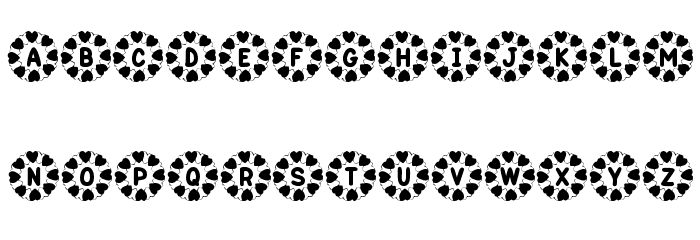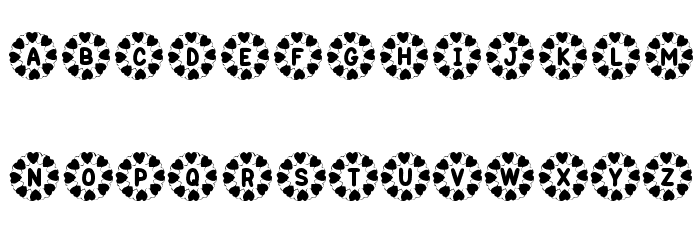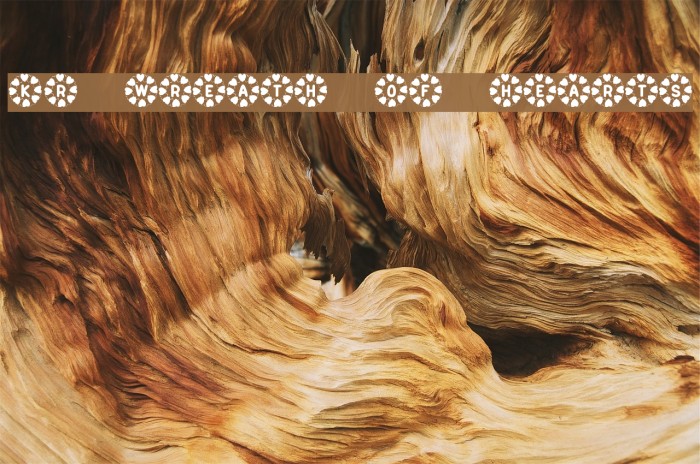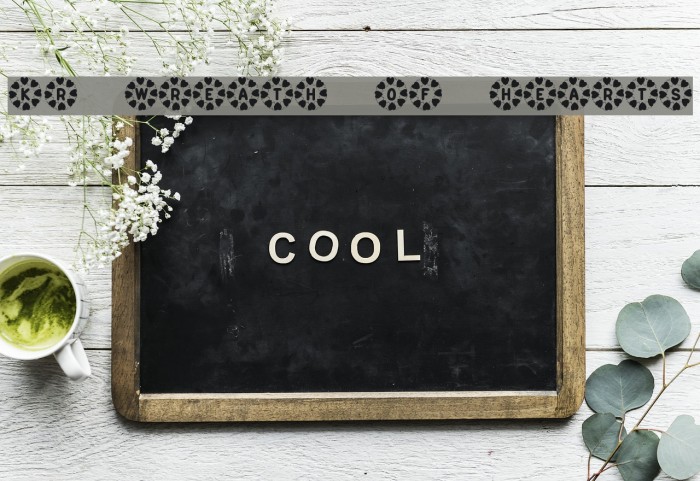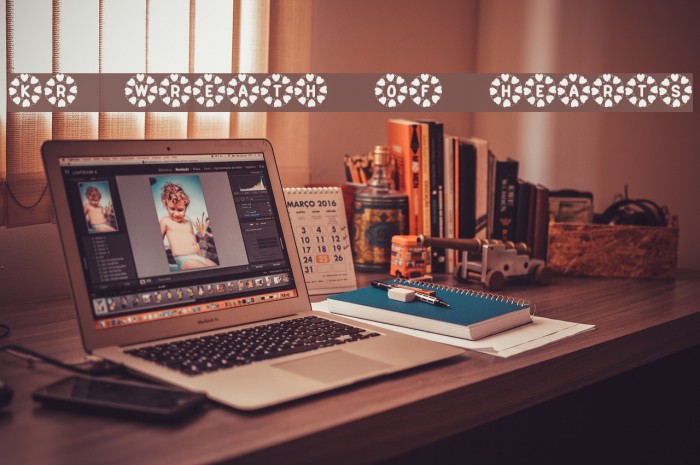
KR Wreath Of Hearts Font
This decorative font features characters encased in a circular wreath of hearts, creating a playful and romantic aesthetic. Each letter and number is centered within a circle, surrounded by a symmetrical pattern of heart shapes. The font maintains a consistent size and shape across all characters, ensuring uniformity. The heart motif adds a whimsical touch, making it ideal for designs that require a charming and affectionate feel. The bold outlines of the letters ensure readability while the decorative elements provide a unique visual appeal.
A decorative font with characters encased in heart-shaped wreaths.
- Proposed Projects: Ideal for Valentine's Day cards, wedding invitations, romantic-themed posters, and playful branding projects.